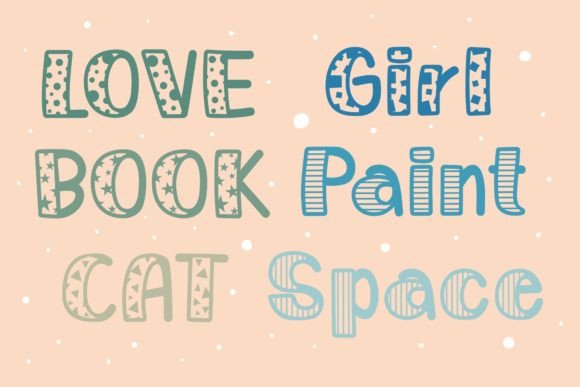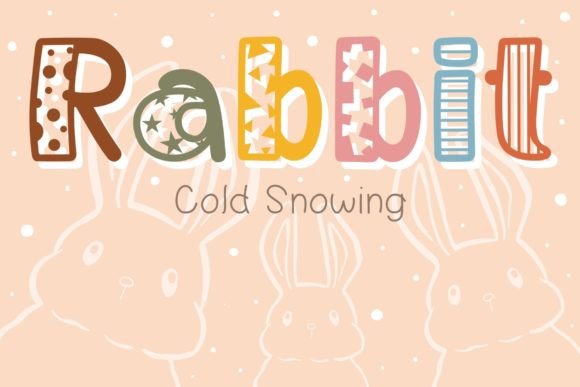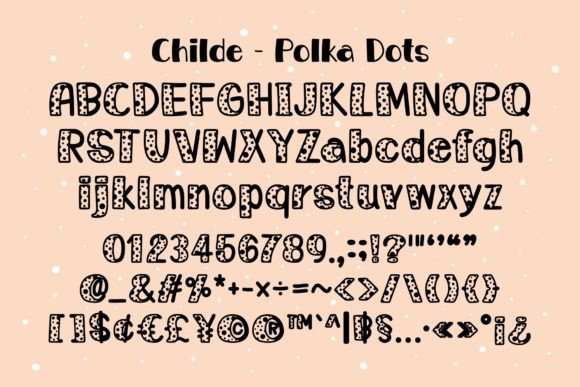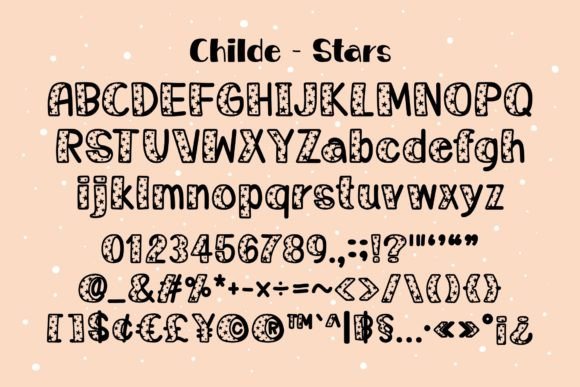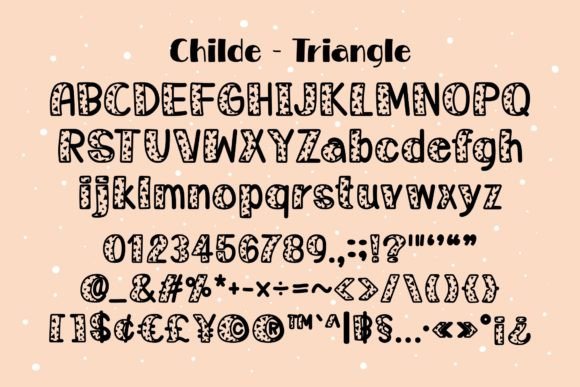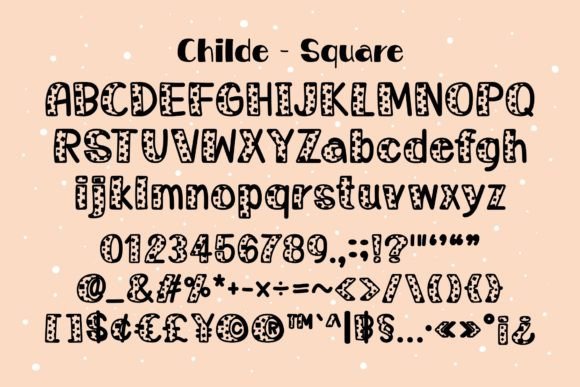
Introducing Childe Font: The Cute Decorative Font for Creative Projects
Are you a designer, crafter, or DIY enthusiast looking for a unique and playful font to elevate your creative projects? Look no further than Childe Font, a charming decorative font that comes in six delightful styles. With its bold and fun design, Childe Font is perfect for logos, branding, social media, and a wide range of crafty DIY projects.
What is Childe Font?
Childe Font is a carefully crafted decorative font that combines bold fonts with different elements to create six distinct styles. These styles include polka dots, stars, rectangles, squares, horizontal, and vertical designs. Each style is meticulously designed to bring a touch of cuteness and playfulness to your projects.
Key Features of Childe Font
- 6 Unique Styles: Childe Font offers six different styles to choose from, ensuring that you can find the perfect fit for your project. Whether you’re looking for a whimsical polka dot design or a bold geometric pattern, Childe Font has got you covered.
- Bold and Fun Design: The font’s bold design ensures that your text stands out, while its fun and playful elements add a touch of personality to your projects.
- Versatile: Childe Font is perfect for a wide range of applications, including logos, branding, social media, crafty DIY projects, and more.
Childe Font is an excellent choice for designers and crafters who want to add a touch of personality to their projects. Whether you’re creating a logo, branding materials, or social media graphics, Childe Font can help you stand out from the crowd. Its unique and playful design makes it perfect for:
- Logos and Branding: Create a memorable and recognizable brand with Childe Font’s bold and fun design.
- Social Media Graphics: Add a touch of personality to your social media graphics, including Facebook posts, Instagram stories, and Twitter headers.
- Crafty DIY Projects: Use Childe Font to add a personal touch to your crafty DIY projects, such as handmade cards, gift tags, and scrapbooking.
To get the most out of Childe Font, here are a few tips to keep in mind:
- Experiment with Different Styles: Try out different styles to find the one that works best for your project.
- Combine with Other Fonts: Combine Childe Font with other fonts to create a unique and eye-catching design.
- Use on Different Backgrounds: Experiment with different backgrounds to find the one that makes your text stand out.
Childe Font is a delightful decorative font that is sure to bring a touch of cuteness and playfulness to your creative projects. With its six unique styles, bold and fun design, and versatility, Childe Font is perfect for designers, crafters, and DIY enthusiasts of all skill levels. So why wait? Download Childe Font today and start creating your own unique and eye-catching projects!